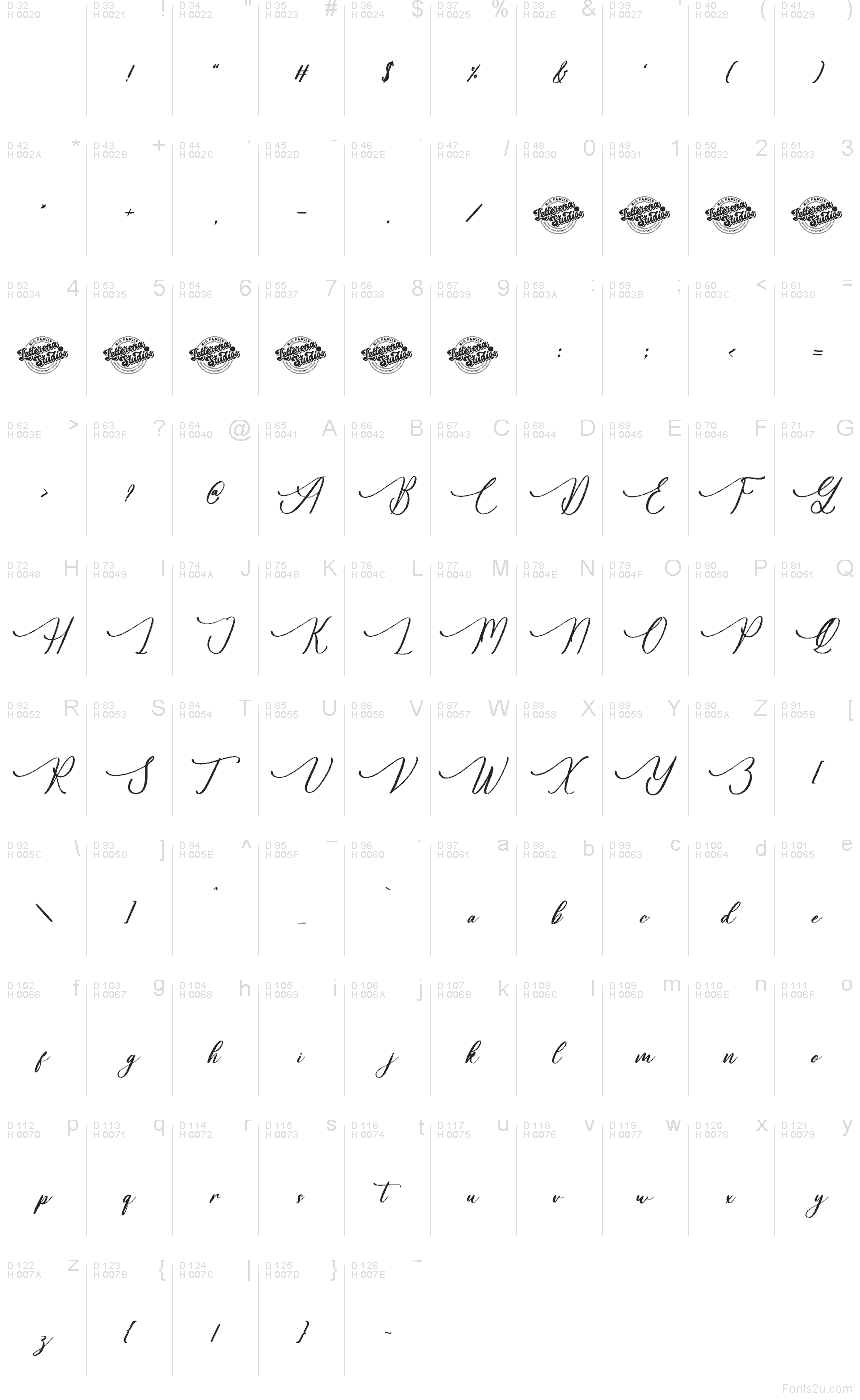
Gradefully Beauttina DEMO VERSI
Gradefully Beauttina font by Letterena Studios is a free handwritten script typeface that looks like it was brushed onto fine stationery with a smooth, inky pen. Long sweeping entry strokes, airy loops, and elegant rhythm give it a romantic, slightly formal character without feeling stiff. The letters connect in a gentle, flowing line that instantly reads as personal and crafted by hand.
Using Gradefully Beauttina, you can effortlessly elevate wedding invitations, save-the-dates, logo wordmarks, boutique packaging, social media quotes, and event signage. This free font shines when set large so its flourishes have room to breathe; pair it with a clean sans serif for body text to keep layouts readable and modern.